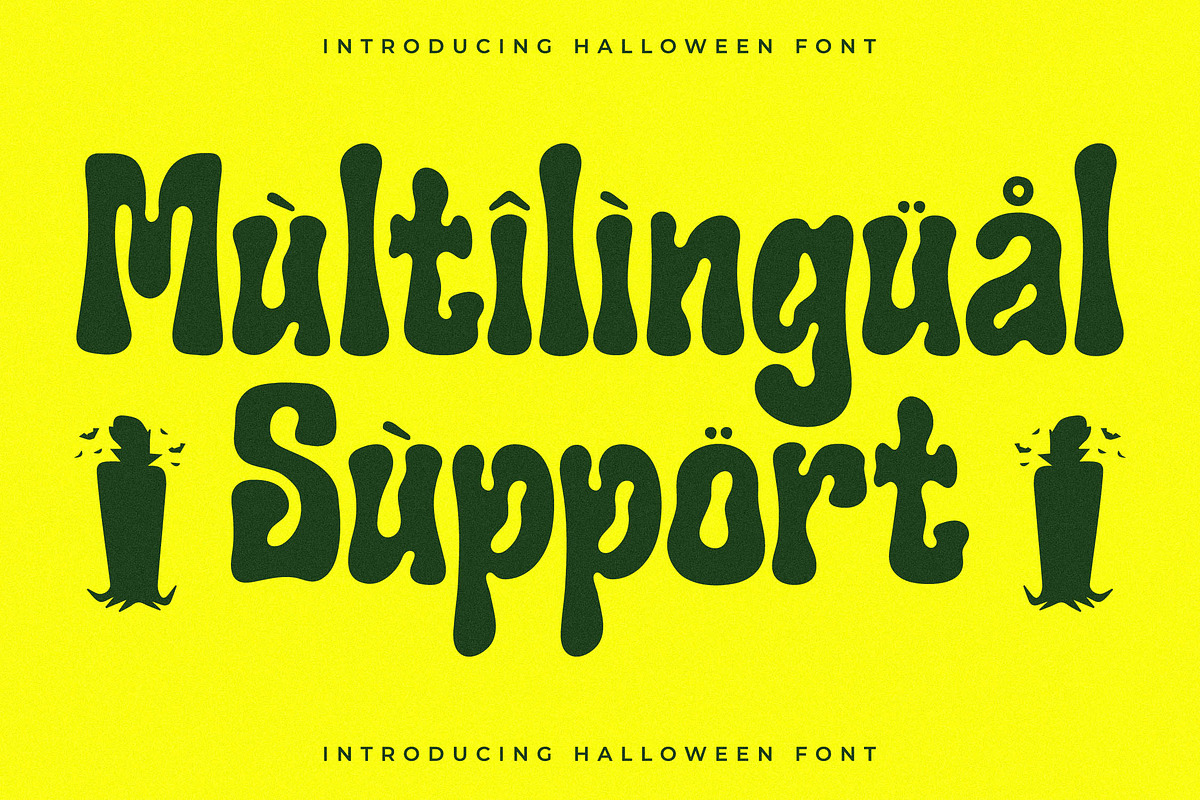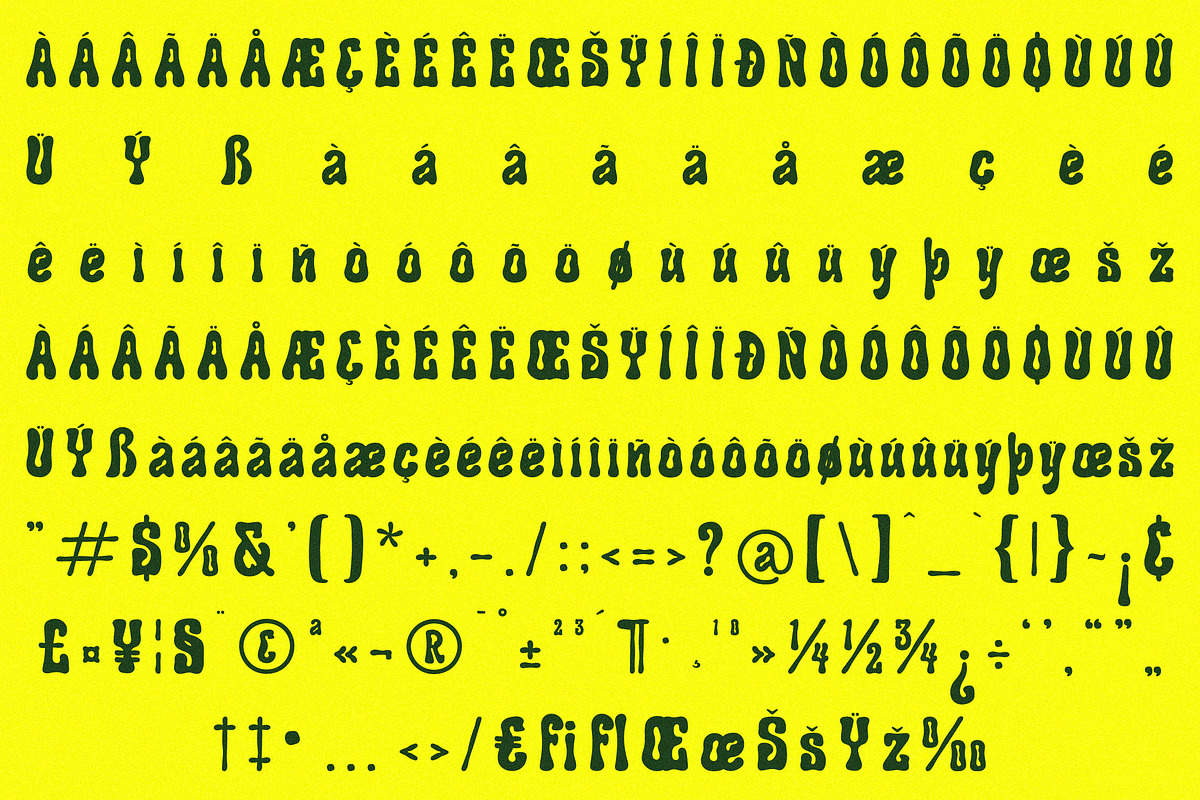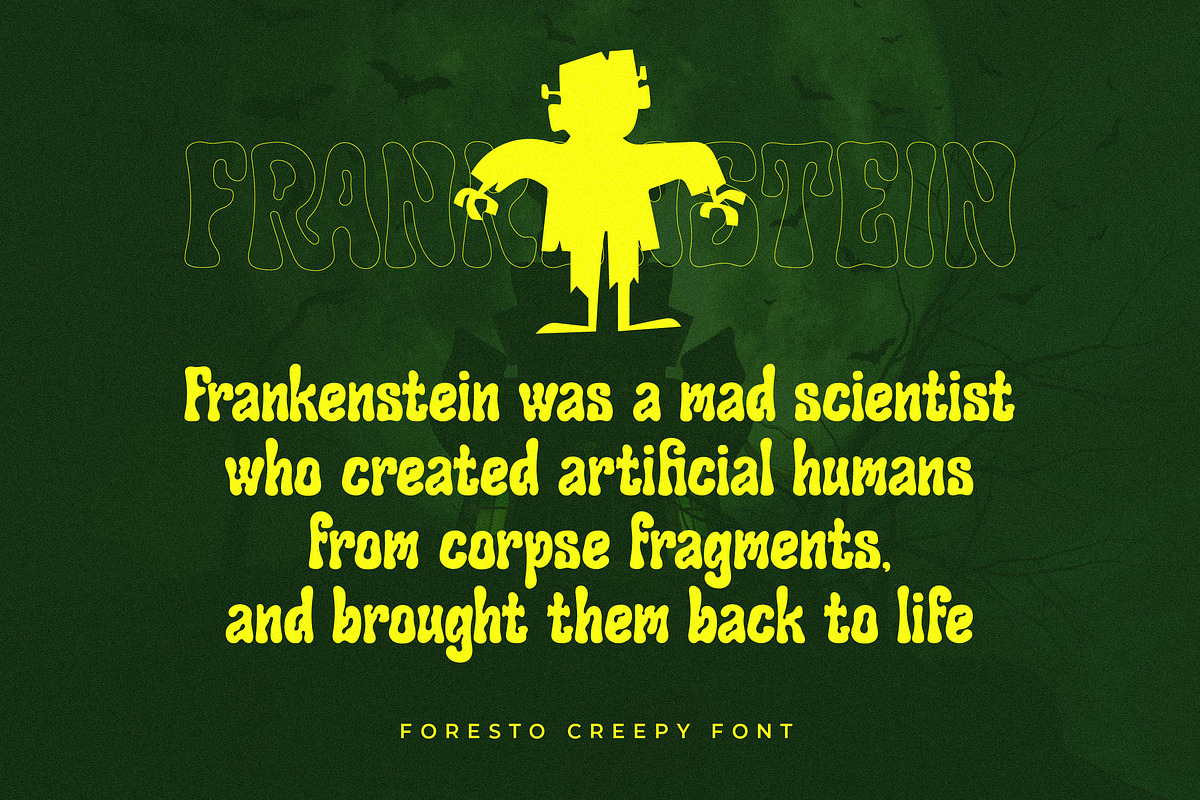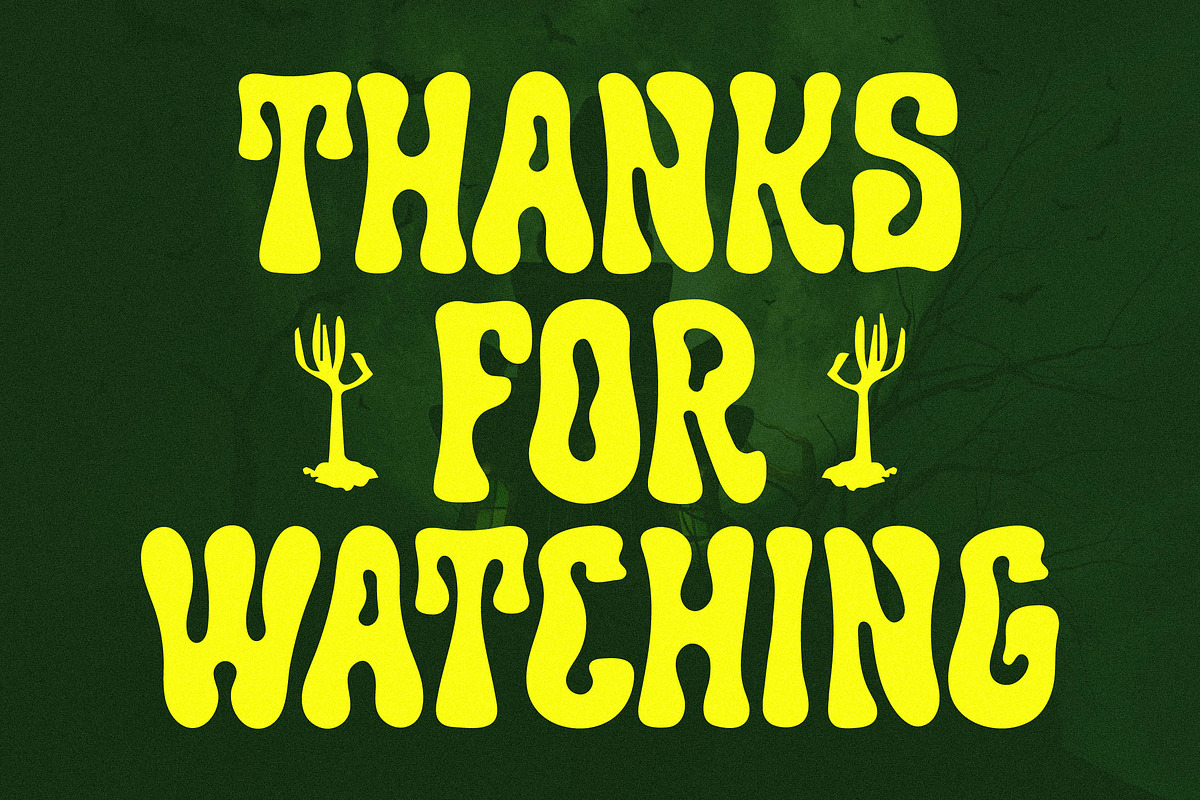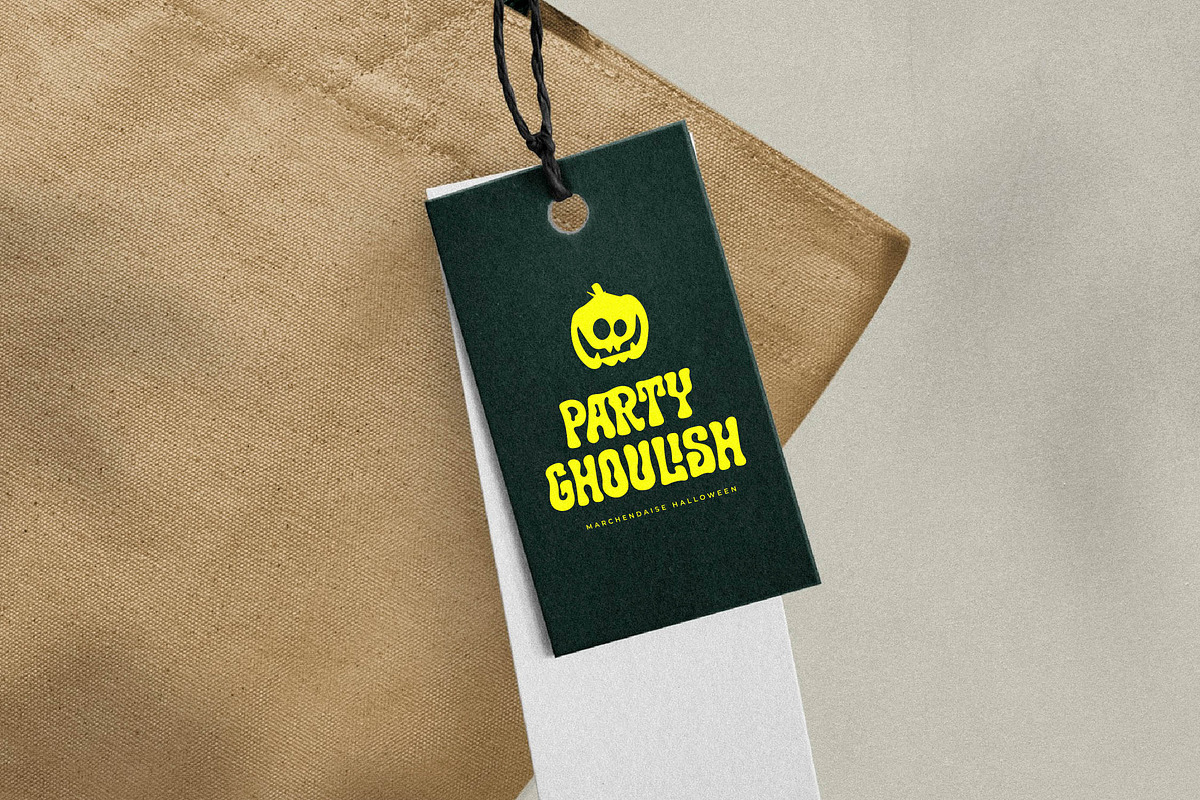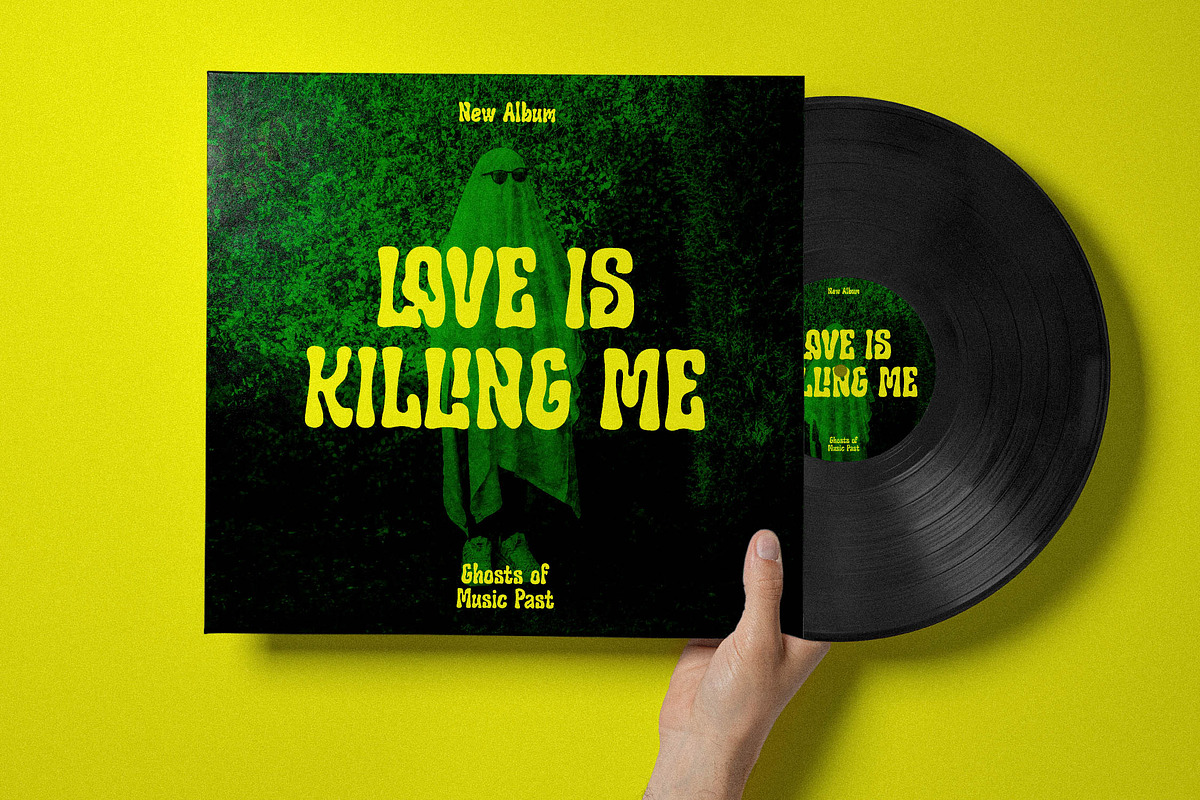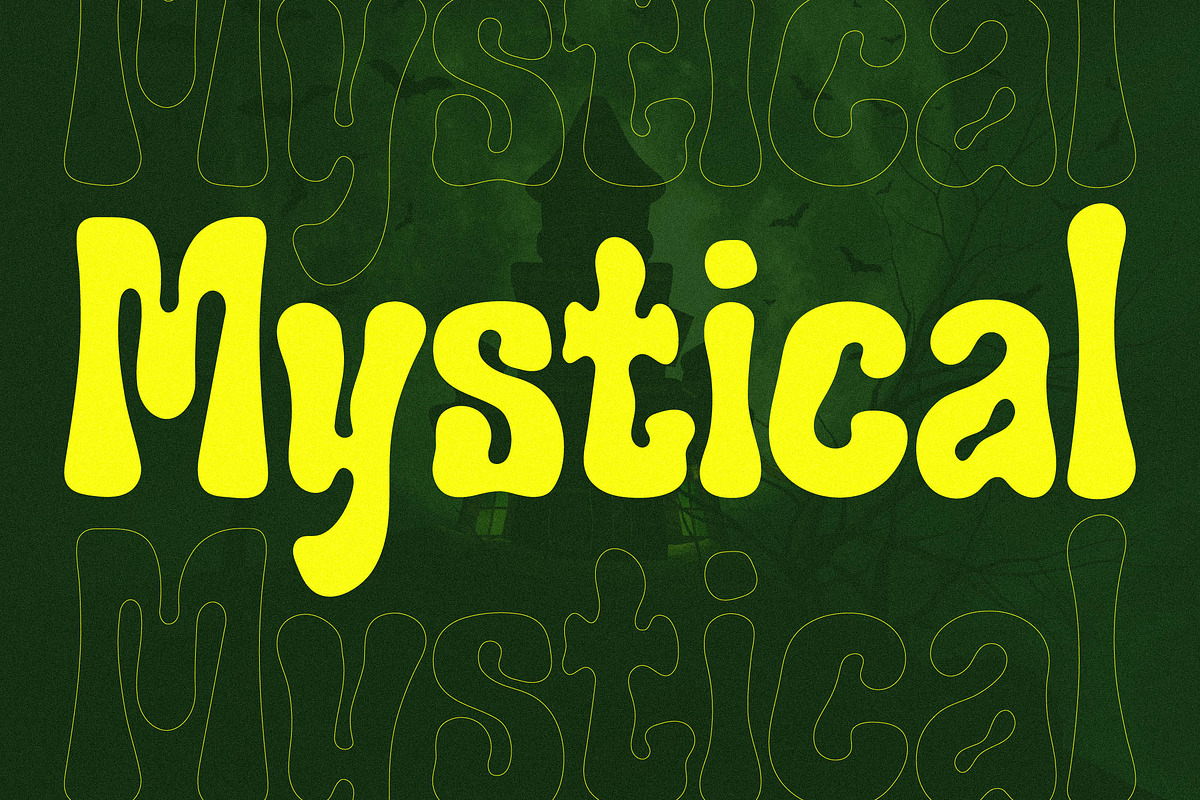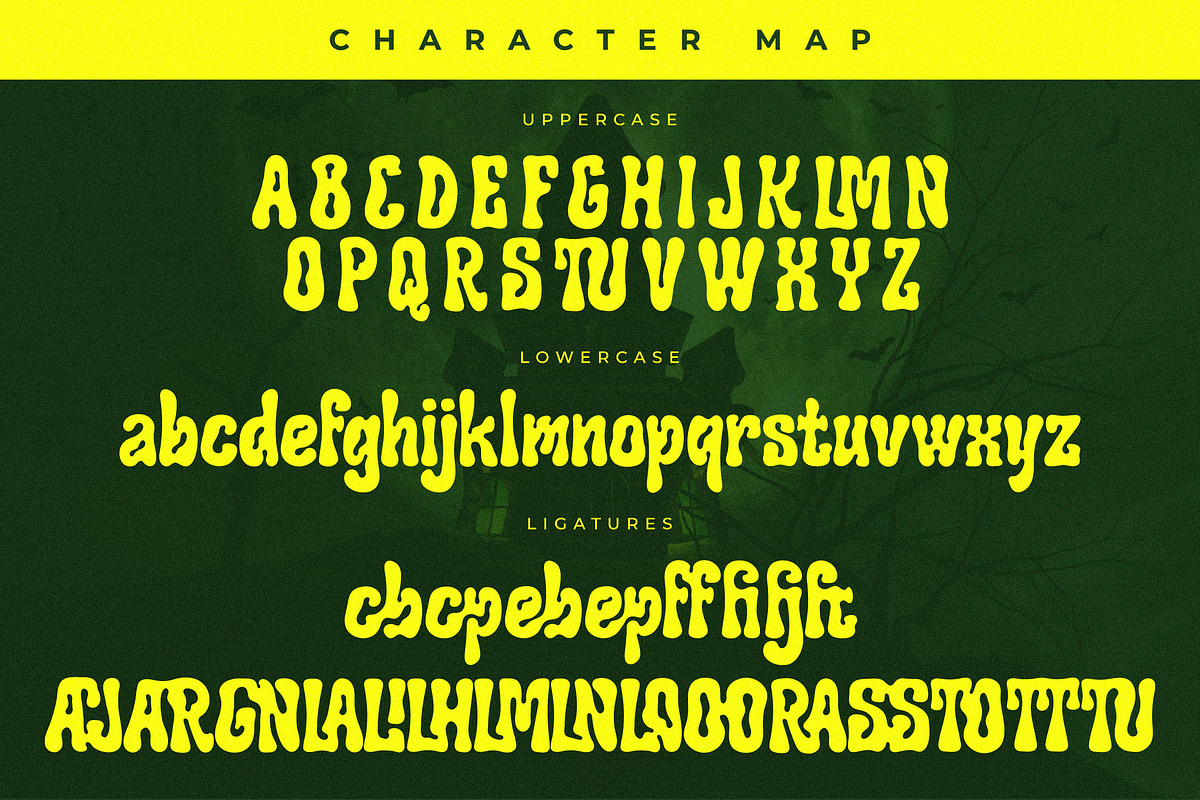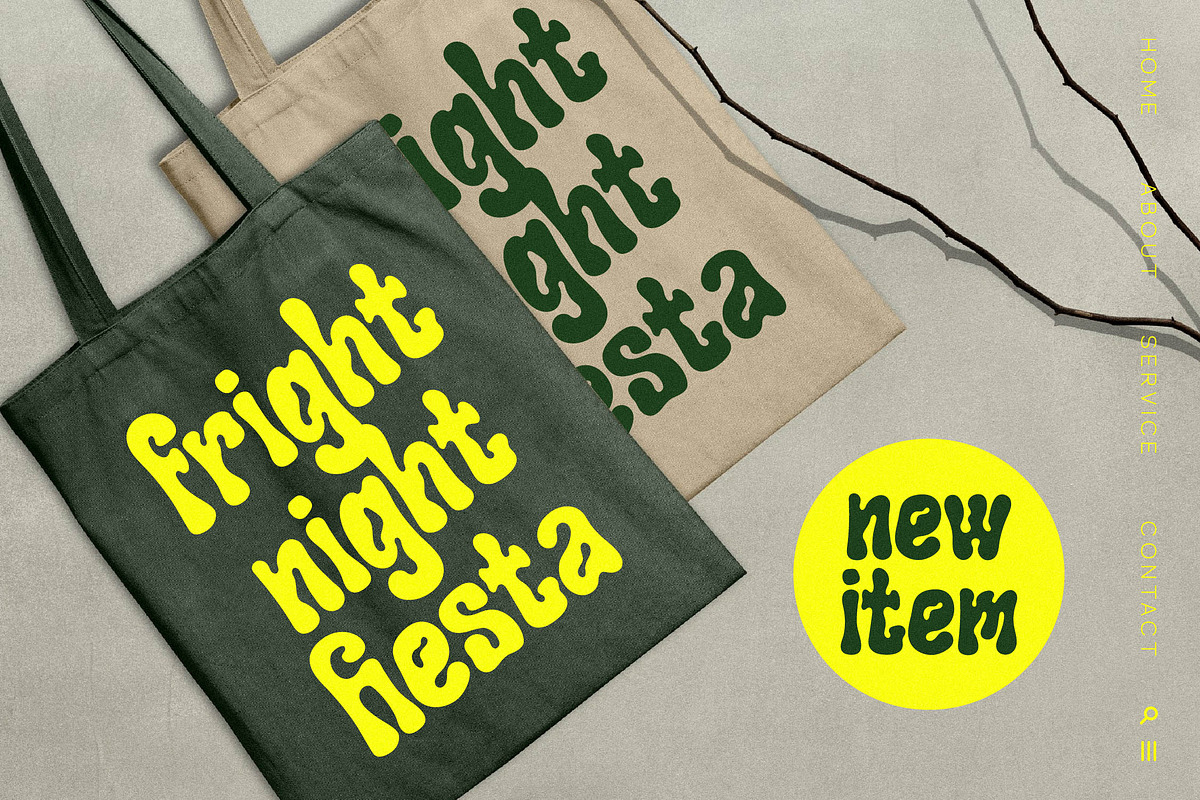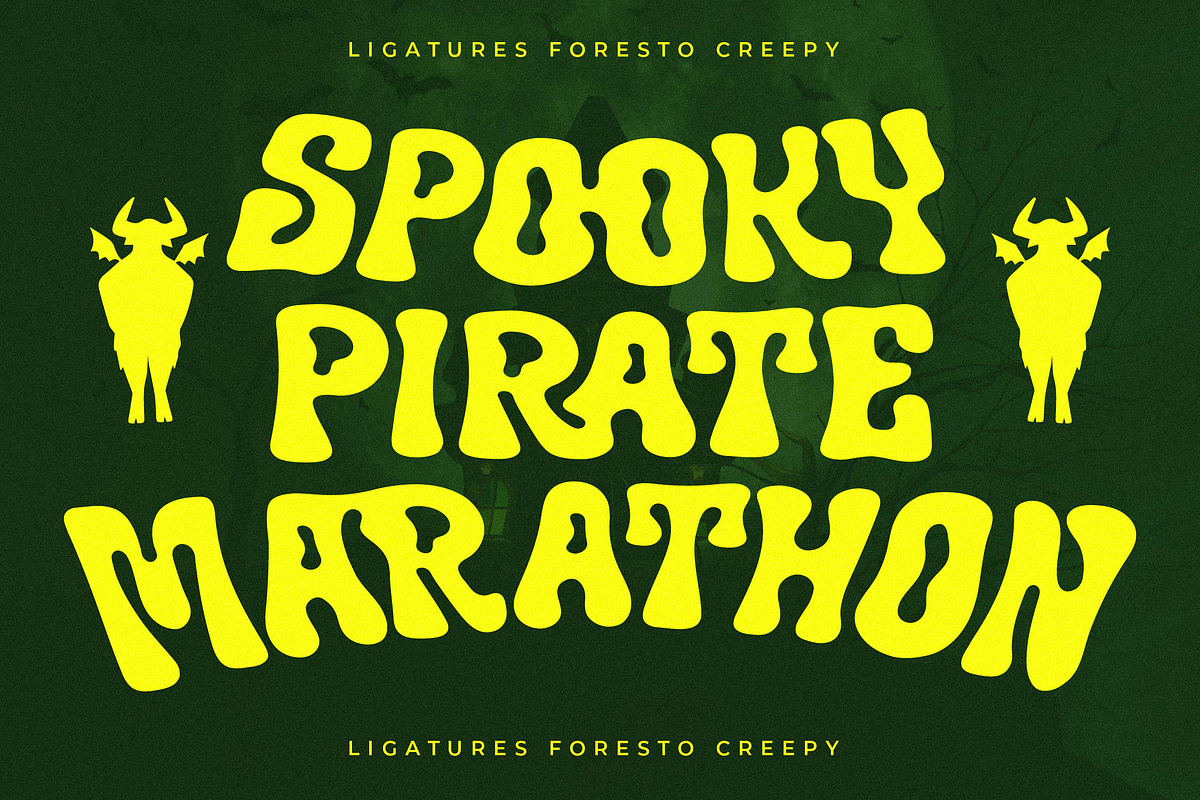
Foresto Creepy Halloween Font
Proudly present Foresto Creepy Typeface , created by Storytype, A serif modern and classic typeface that has own unique style & modern look. This typeface is perfect for an elegant & luxury logo, book or movie title design, fashion brand, magazine, clothes, lettering, quotes, and so much more.